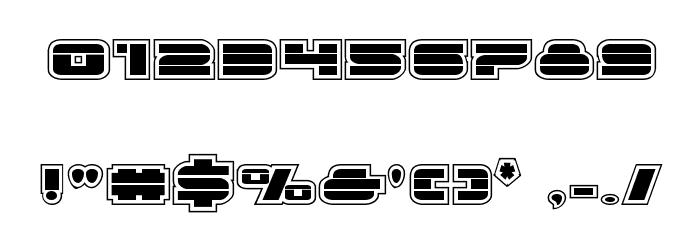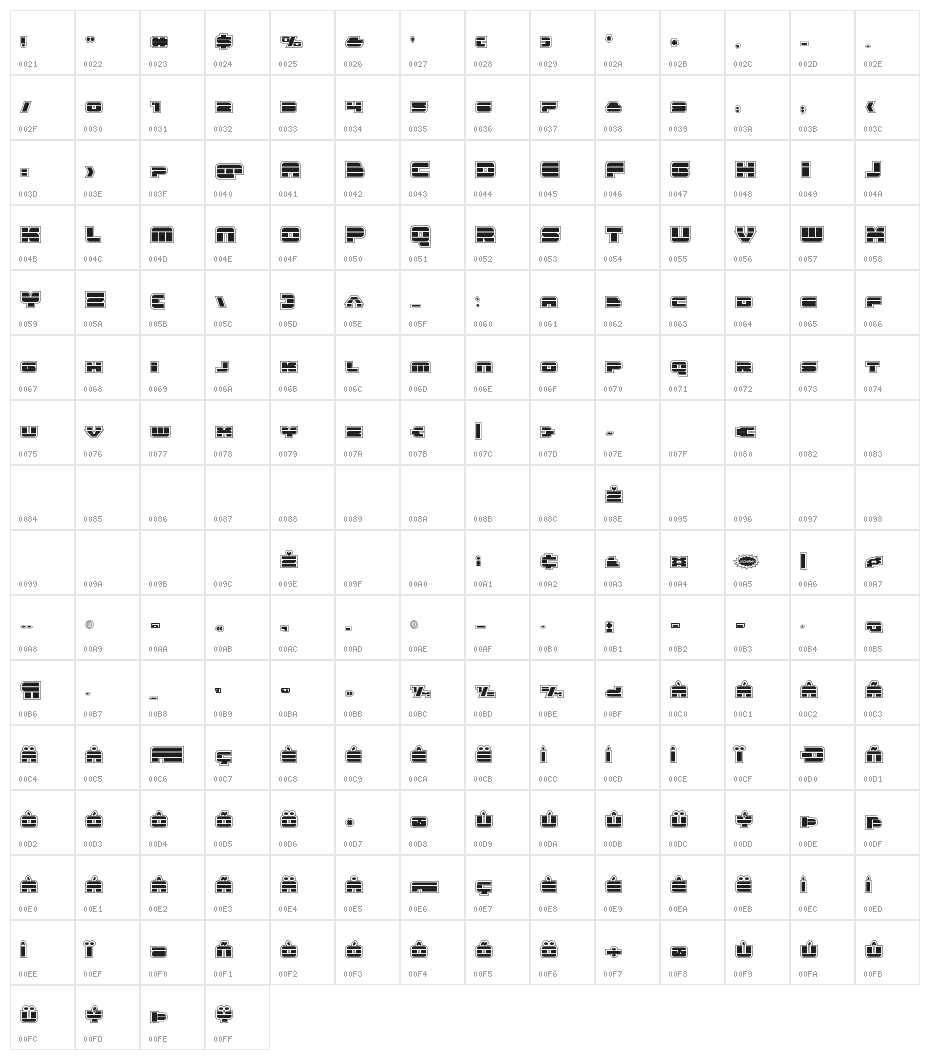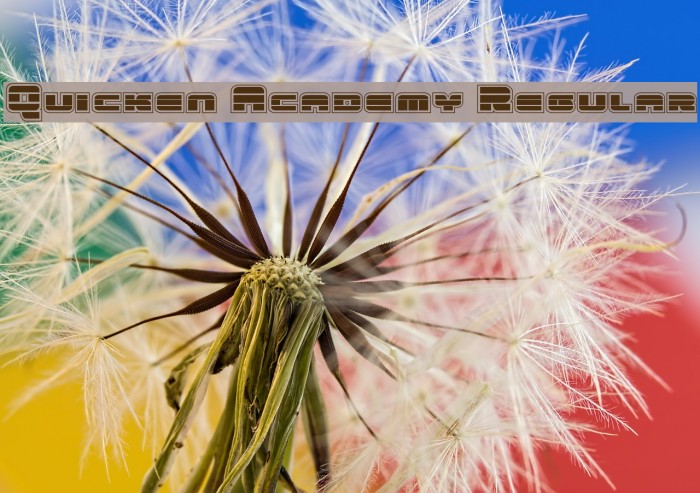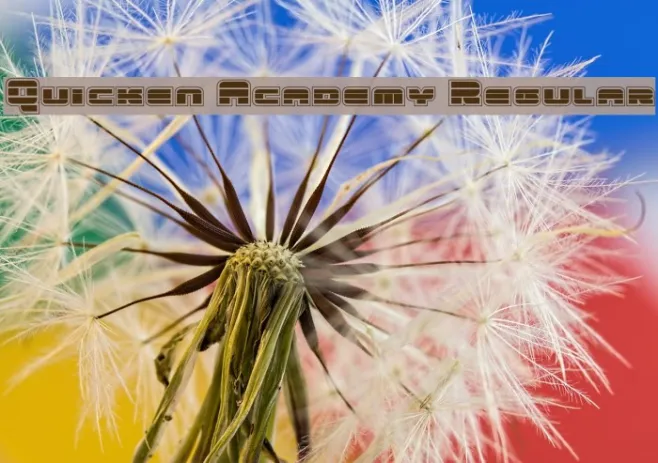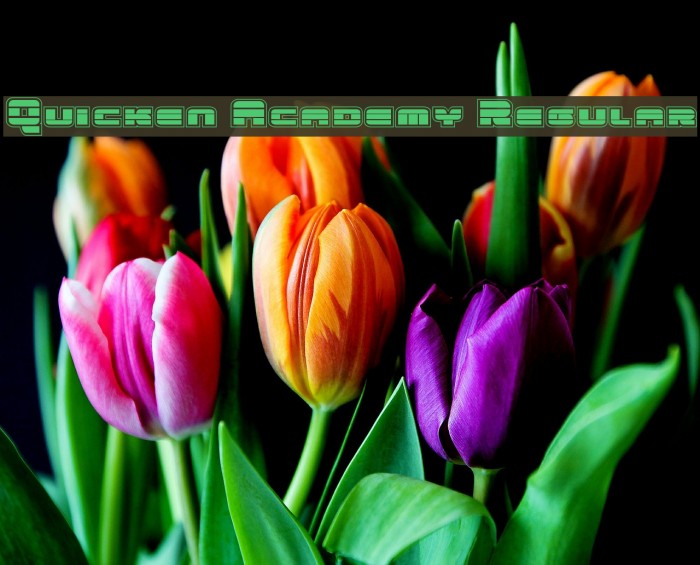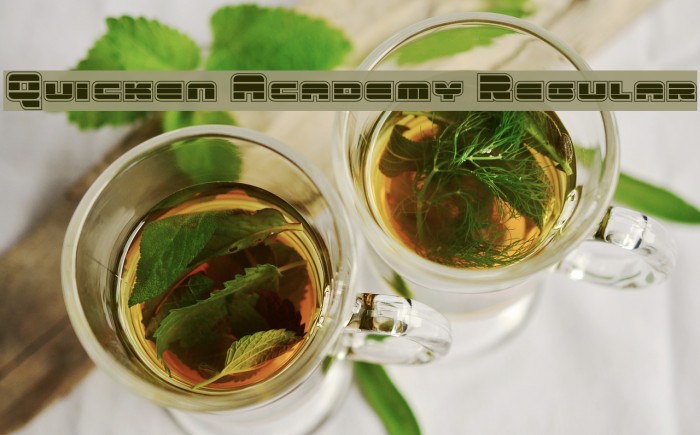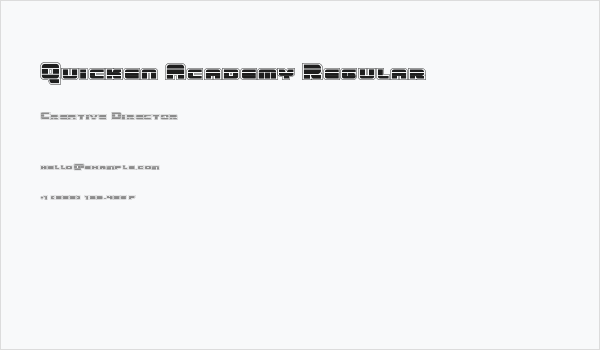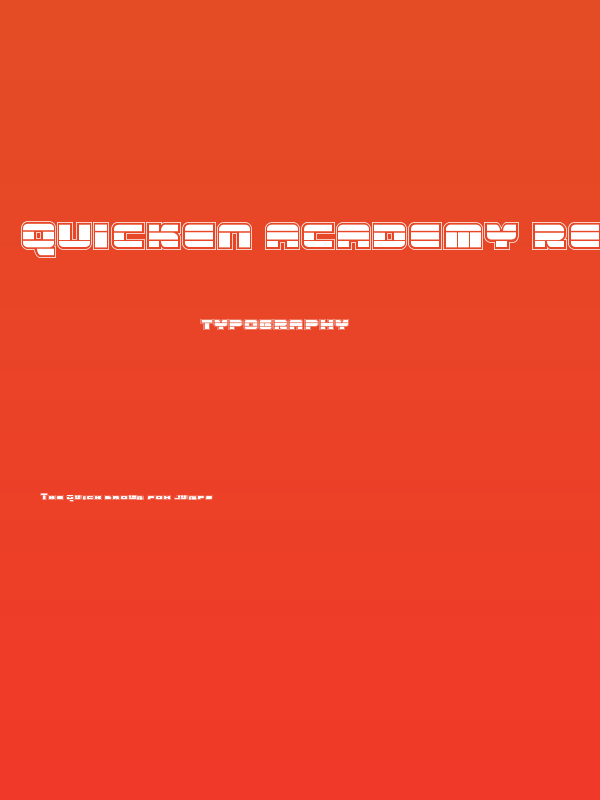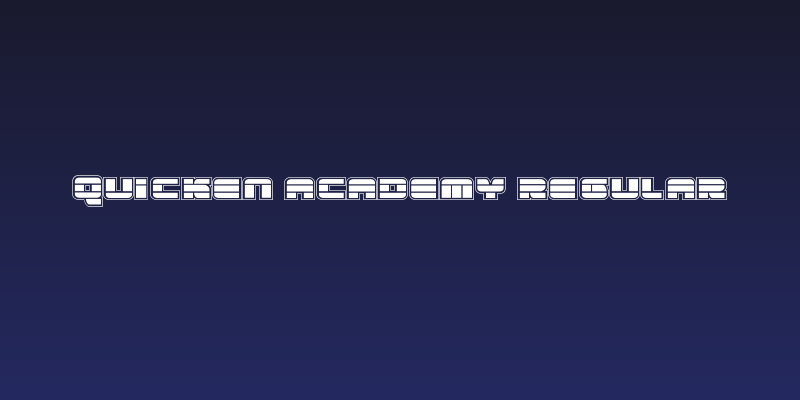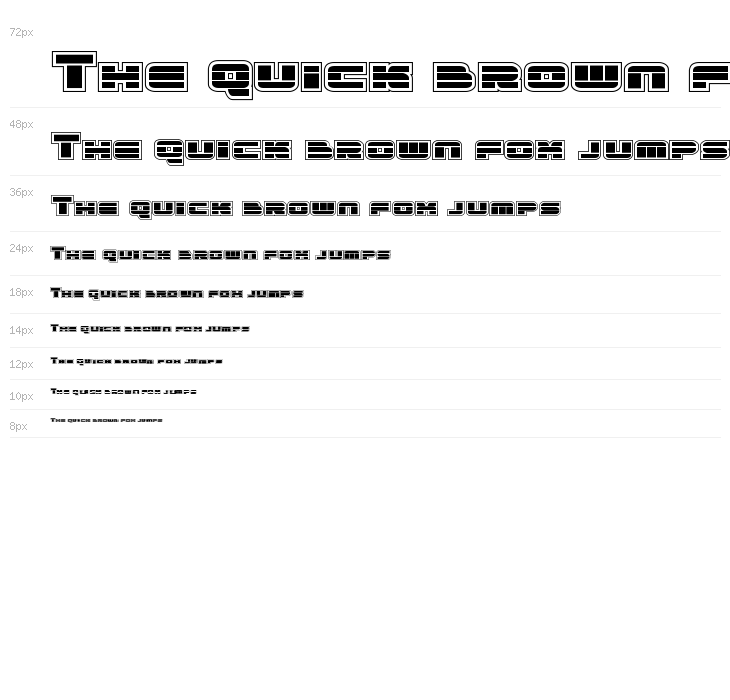
Quicken Academy Regular Font
Quicken Academy Regular Description
This font features a bold, geometric design with a futuristic and modern aesthetic. Each character is constructed with thick, uniform strokes and a distinct outline that creates a layered effect. The letters are predominantly uppercase, with a consistent width and height, giving them a block-like appearance. The design incorporates sharp angles and straight lines, contributing to its technical and digital feel. The numerals and special characters follow the same stylistic approach, ensuring uniformity across all glyphs. This font's unique style makes it stand out, ideal for projects that require a strong visual impact.